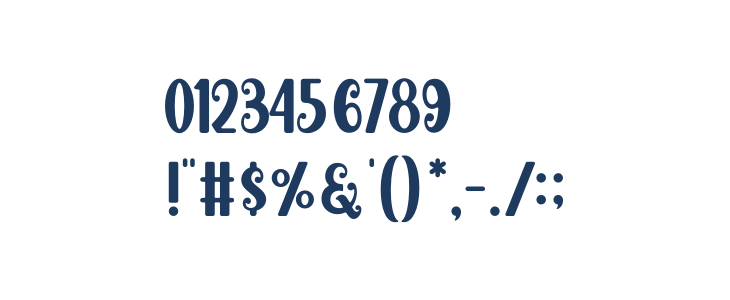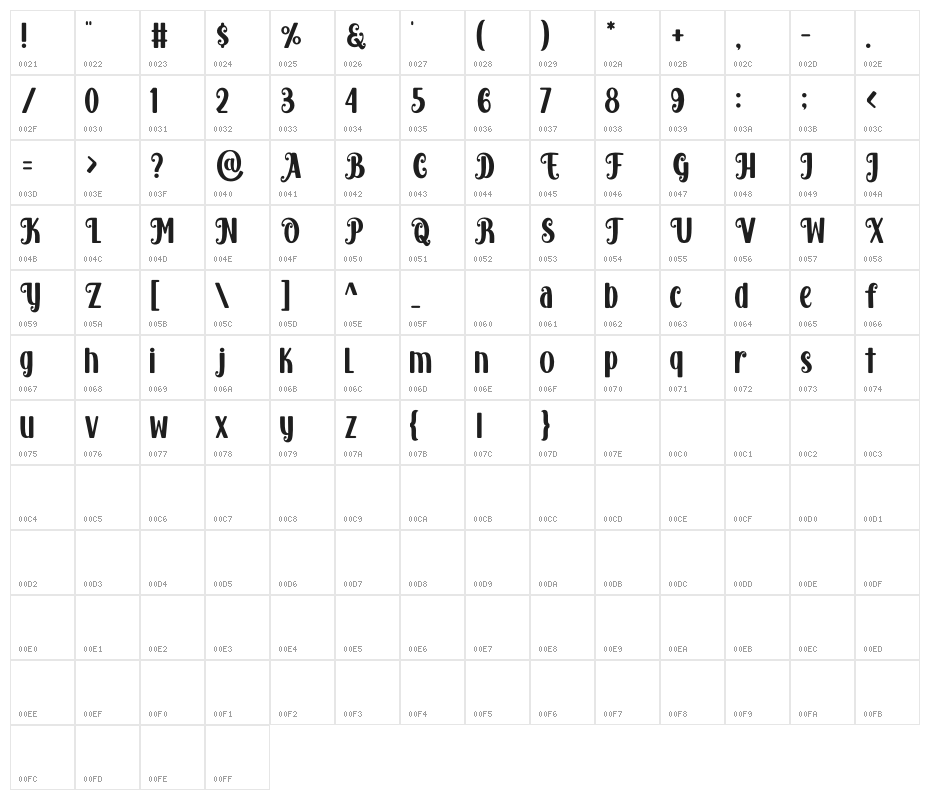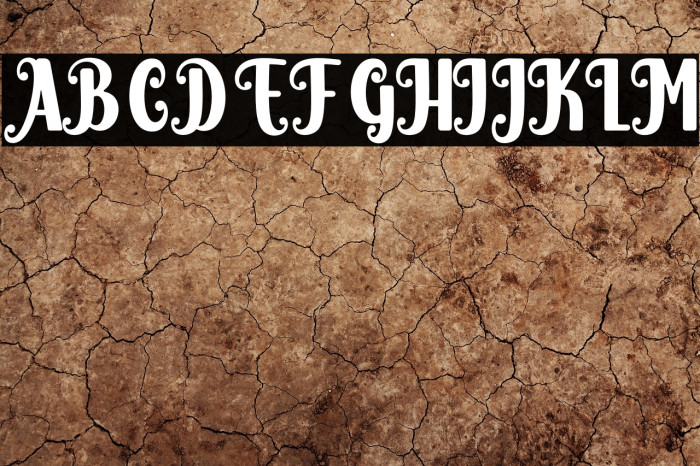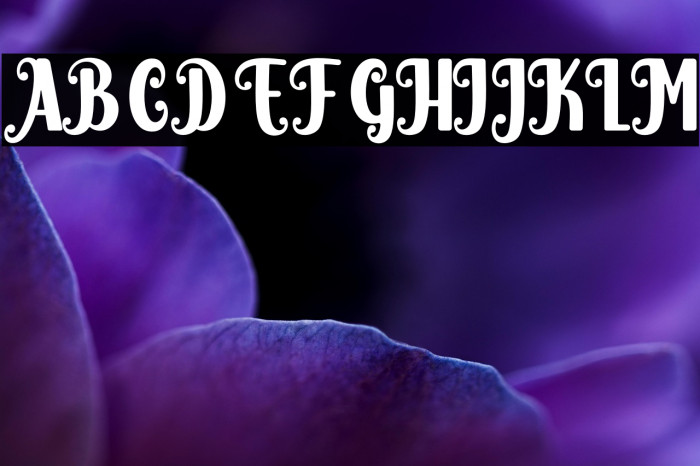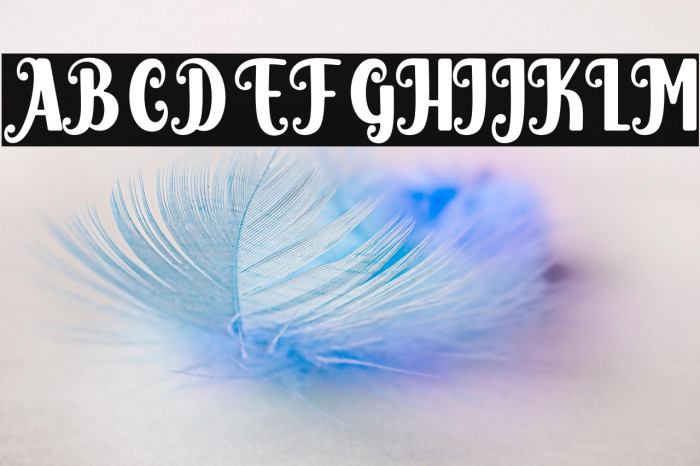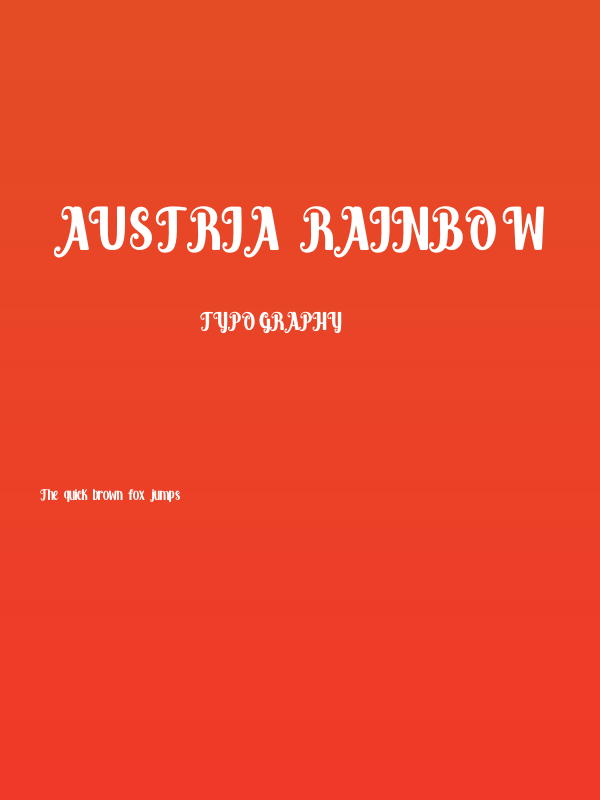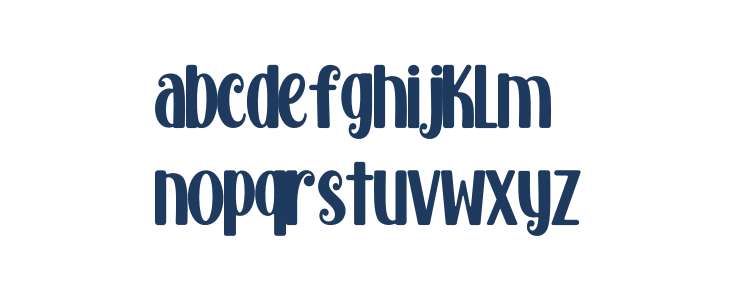
Austria Rainbow Font
This font features a playful and decorative style with a whimsical flair. The characters are bold and rounded, with unique curls and swirls that add a touch of elegance and fun. The uppercase letters are particularly ornate, with each letter showcasing distinctive loops and curves. The lowercase letters maintain a consistent style, offering a harmonious blend with the uppercase. Numbers and special characters are equally stylized, ensuring a cohesive look across all text elements. This font's boldness and decorative nature make it stand out, perfect for projects that require a touch of creativity and flair.
| Proposed Projects | Ideal for children's books, playful branding, invitations, and creative posters. |